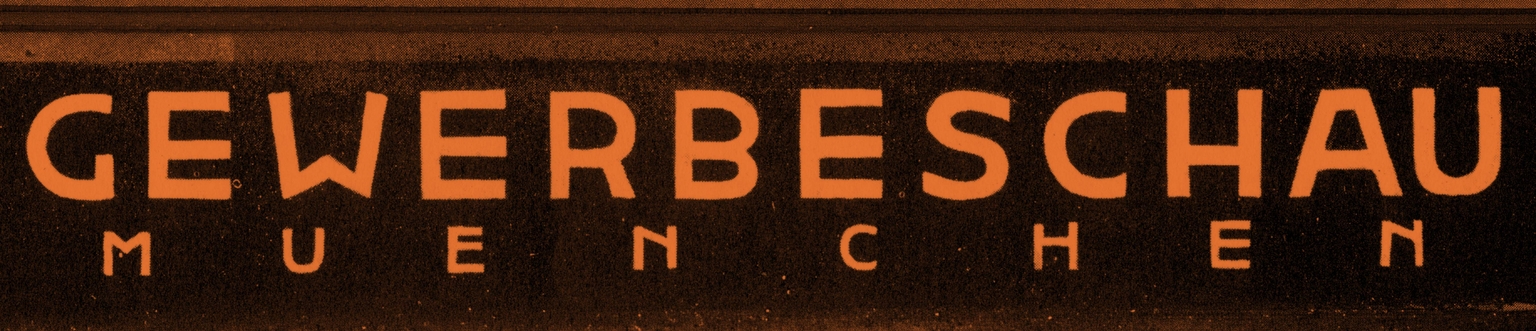
Gewer
Gewer is an all-capitals sans serif typeface designed by Ramiro Espinoza and inspired by the lettering used in promotional materials for the Deutsche Gewerbeschau München, a Bavarian trade exhibition held during the early decades of the twentieth century. The original alphabet combines geometric construction with subtle humanist features and restrained Deco influences, resulting in letterforms that are both rational and refined.
Espinoza studied the proportions, stroke relationships, and structural logic of the original lettering and translated these qualities into a contemporary digital typeface. Rather than reproducing the source literally, he refined the geometry, regularized the construction, and expanded the character set for modern typographic use while preserving its balance between functional clarity and formal elegance.
With its restrained character and generous horizontal proportions, Gewer is well suited for branding, editorial design, posters, signage, packaging, websites, and exhibition graphics. Combining geometric structure, subtle humanist modulation, and Deco-inspired details, it offers a distinctive display voice that connects early twentieth-century commercial lettering with contemporary graphic design.